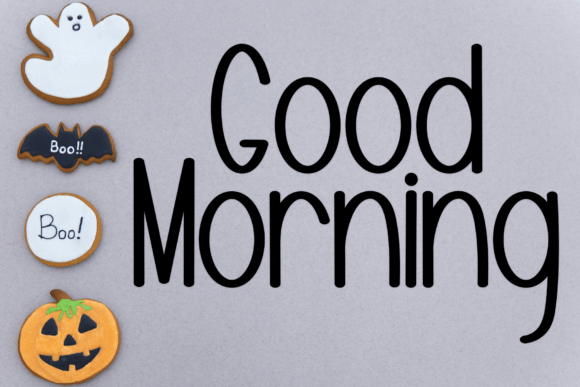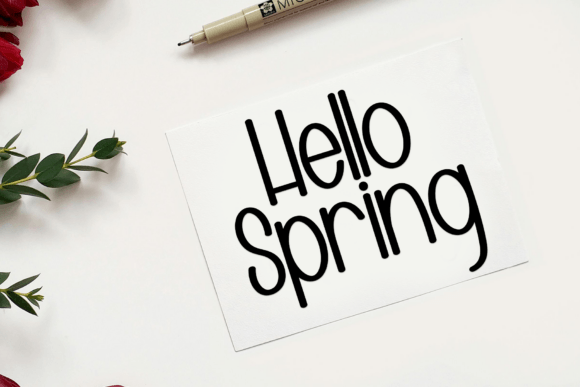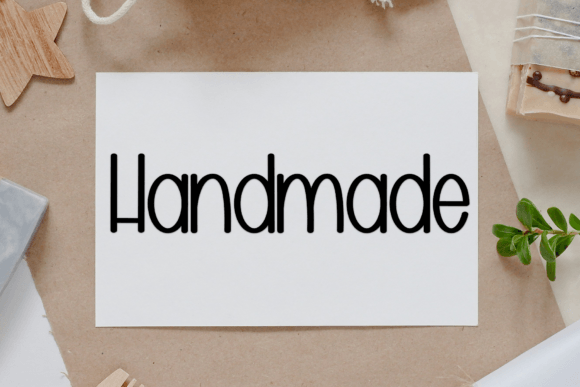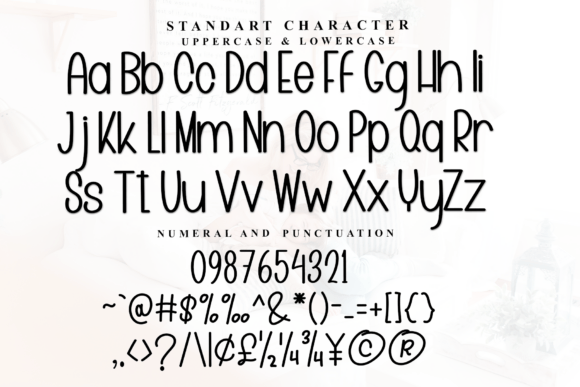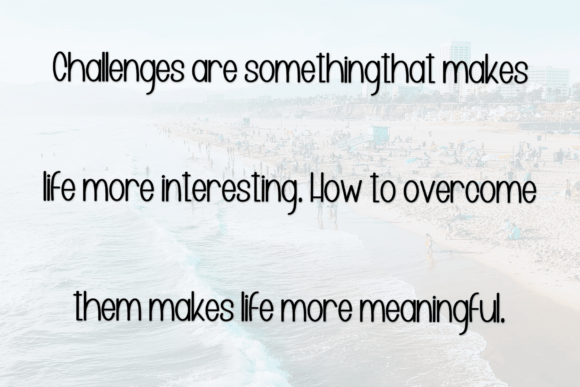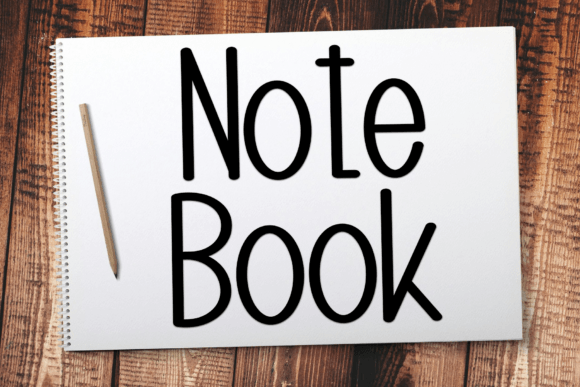
Happy Halloween Font: Add a Spooky Touch to Your Designs
Are you looking for a font that captures the spirit of Halloween? Look no further than the Happy Halloween Font! This festive and happy typeface is perfect for adding a touch of charm to your designs, whether you’re creating greeting cards, gift labels, or holiday-themed projects.
What Makes Happy Halloween Font So Special?
The Happy Halloween Font is a decorative typeface that features unique flair and elements that are sure to make your designs stand out. With its cheerful and nostalgic atmosphere, this font is perfect for bringing a touch of Halloween magic to your words. Whether you’re a designer, crafter, or DIY enthusiast, this font is sure to inspire your creativity.
The Happy Halloween Font is perfect for a variety of holiday-themed projects, including:
- Greeting cards: Create spooky and fun greeting cards for Halloween with this font.
- Gift labels: Add a personal touch to your gifts with custom labels featuring the Happy Halloween Font.
- Holiday-themed projects: Use this font to create festive and fun projects, such as party invitations, decorations, and more.
One of the best features of the Happy Halloween Font is that it’s PUA (Private Use Area) coded. This means that you can access all the amazing glyphs and ligatures easily, without having to worry about complicated coding or technical issues. With PUA coding, you can simply click and access the characters you need, making it easy to create beautiful and unique designs.
Key Features of Happy Halloween Font
- Festive and happy typeface perfect for Halloween designs
- Decorative elements and unique flair add charm to your designs
- Perfect for greeting cards, gift labels, and holiday-themed projects
- PUA coded for easy access to glyphs and ligatures
- Cheerful and nostalgic atmosphere brings a touch of Halloween magic to your words
Tips for Using Happy Halloween Font
Here are a few tips for using the Happy Halloween Font in your designs:
- Experiment with different sizes and colors to create a unique look.
- Combine with other fonts for a layered look.
- Use the font to create custom graphics and illustrations.
Why Designers and Crafters Love Happy Halloween Font
Designers and crafters love the Happy Halloween Font for its unique and festive style. With its decorative elements and cheerful atmosphere, this font is perfect for adding a touch of personality to your designs. Whether you’re creating professional designs or crafting for fun, this font is sure to inspire your creativity and bring a smile to your face.